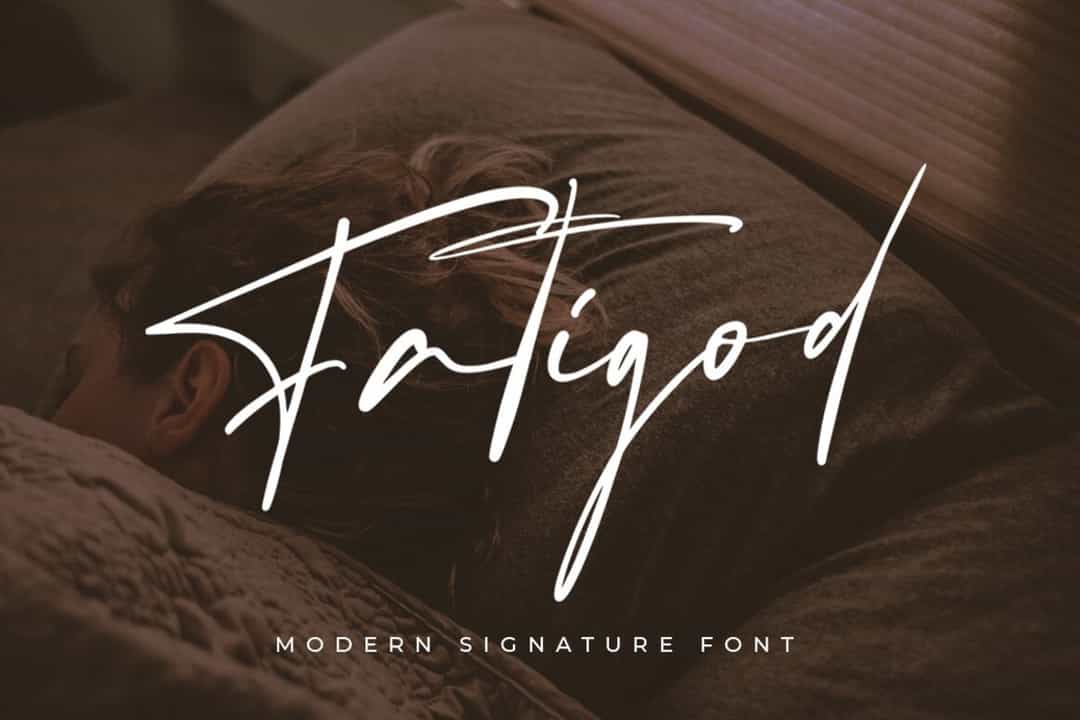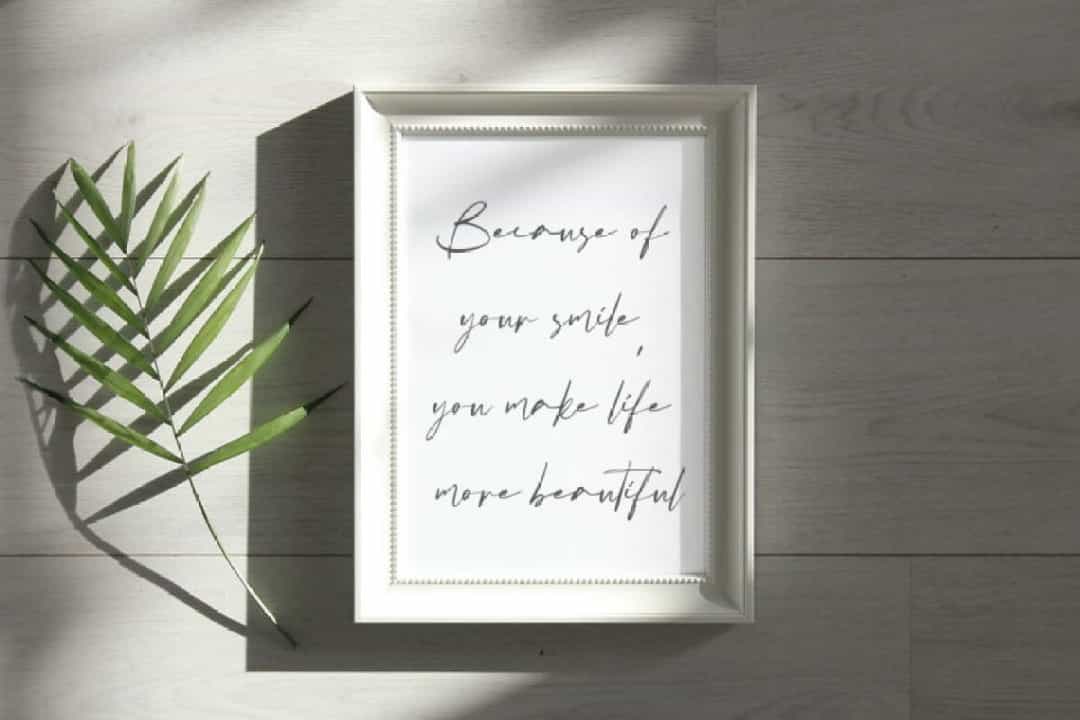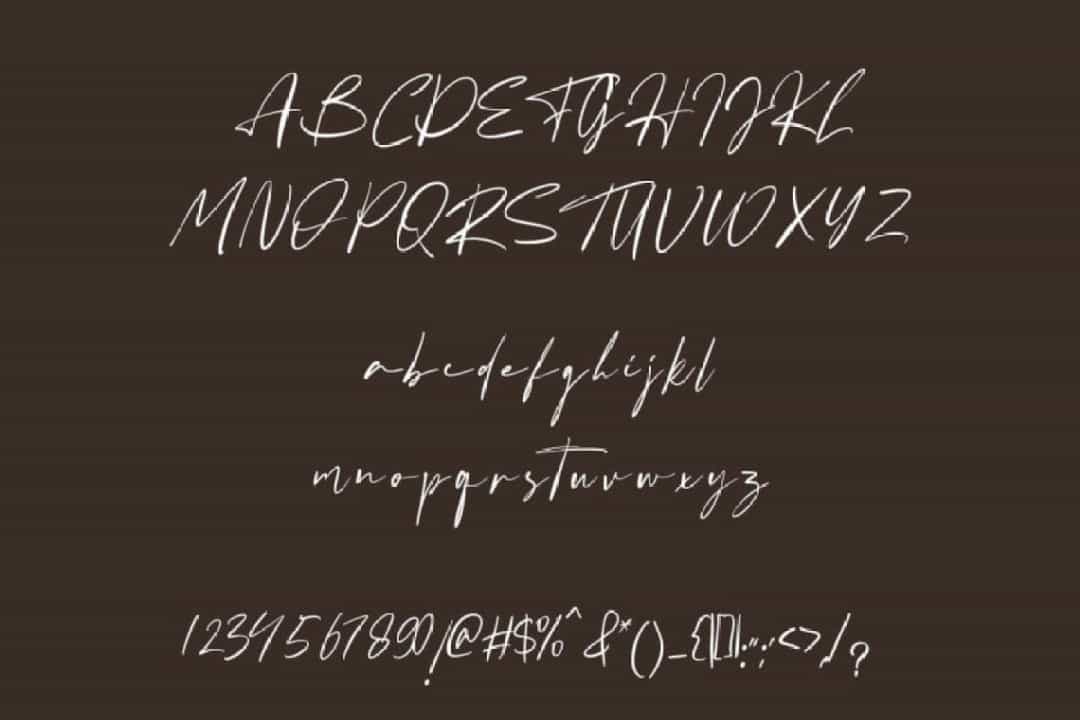
Fatigod is an exquisite font that has a script style along with sophisticated and elegant features designed and provided by hugefonts. Fatigod Font is perfect for wedding invitations thank-you cards quotes greeting cards logos business cards logo designs and any of the projects that require some special attention – this font has clean lines, beautiful glyphs and a lot of options with alternatives!